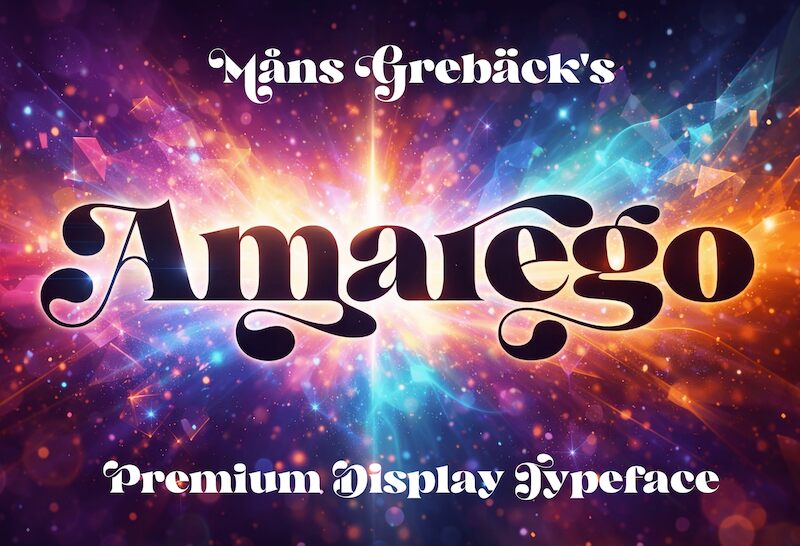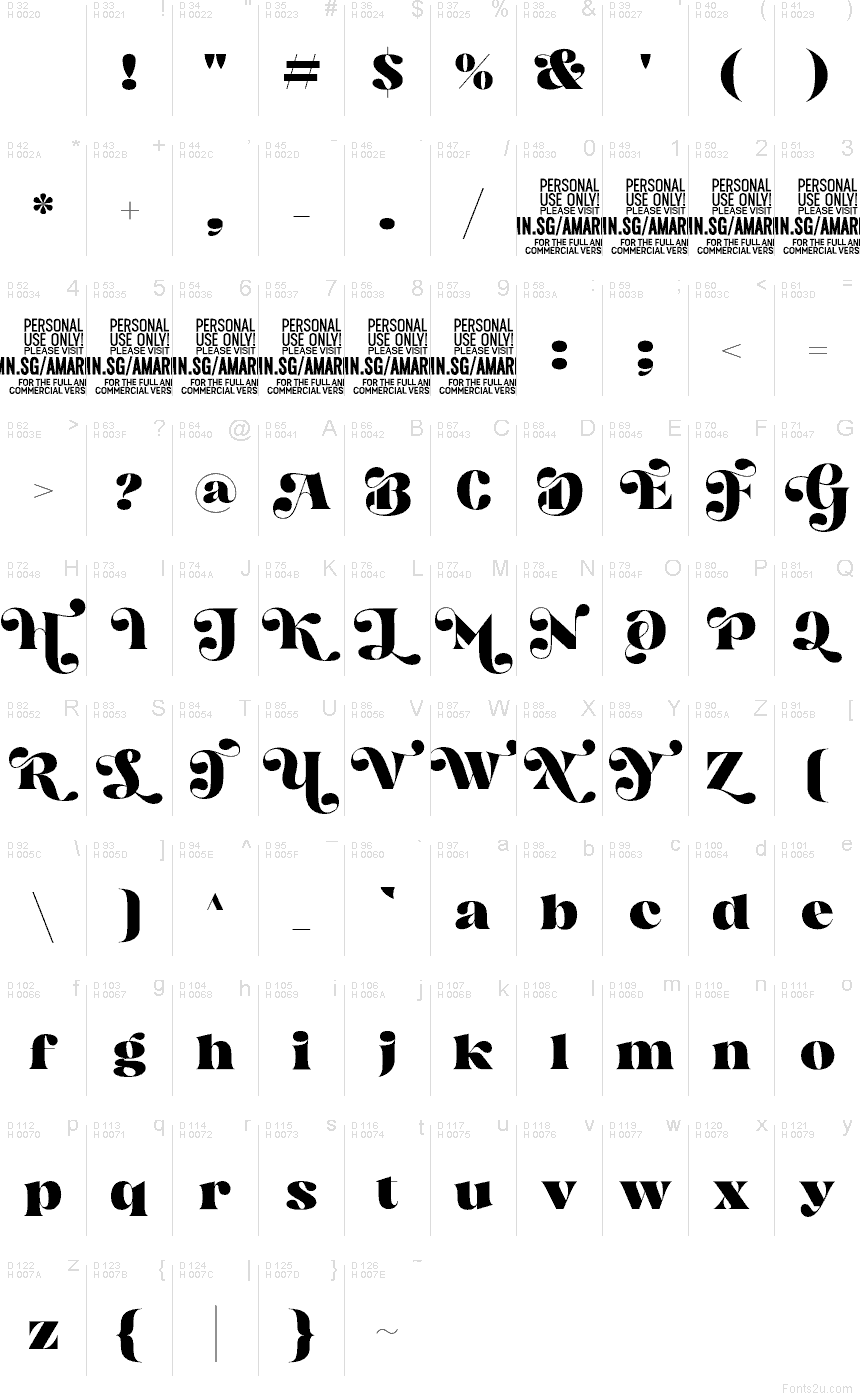
Amarego PERSONAL USE Regular
Amarego font by Mans Greback is a free retro display typeface with a lush, flowing presence that feels almost theatrical. Thick, rounded strokes and sweeping curves create a rolling rhythm, while the dramatic teardrop forms add a soft, inky flair that’s hard to ignore. It looks like vintage lettering turned up to eleven-bold, decorative, and full of motion.
Using Amarego, your titles don’t just sit on the page, they perform. This free font shines on logotypes, packaging, posters, book covers, social graphics, and event invitations where you want a touch of nostalgic glamour. For balance, pair Amarego with a clean geometric sans in smaller text and let this typeface stay large and spacious so its curves can really breathe.